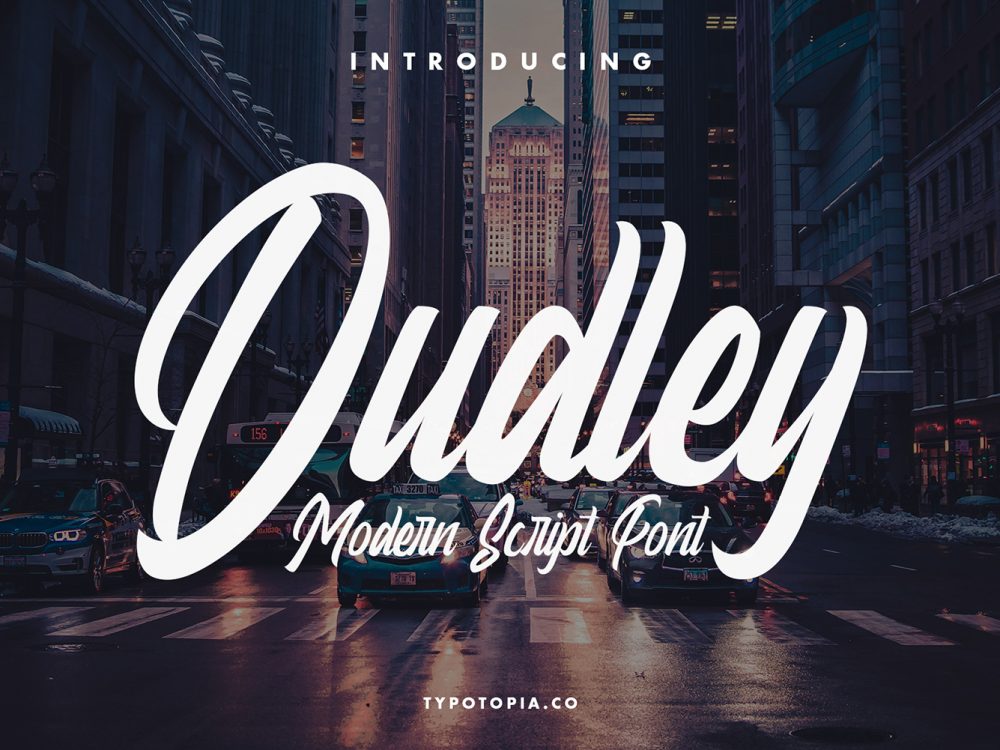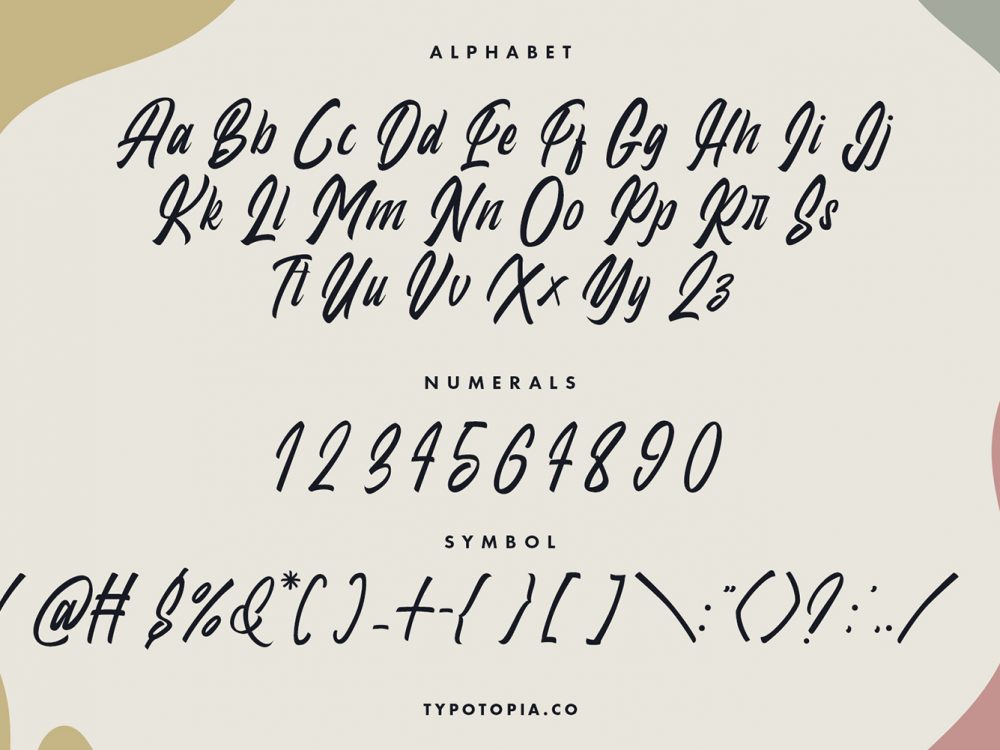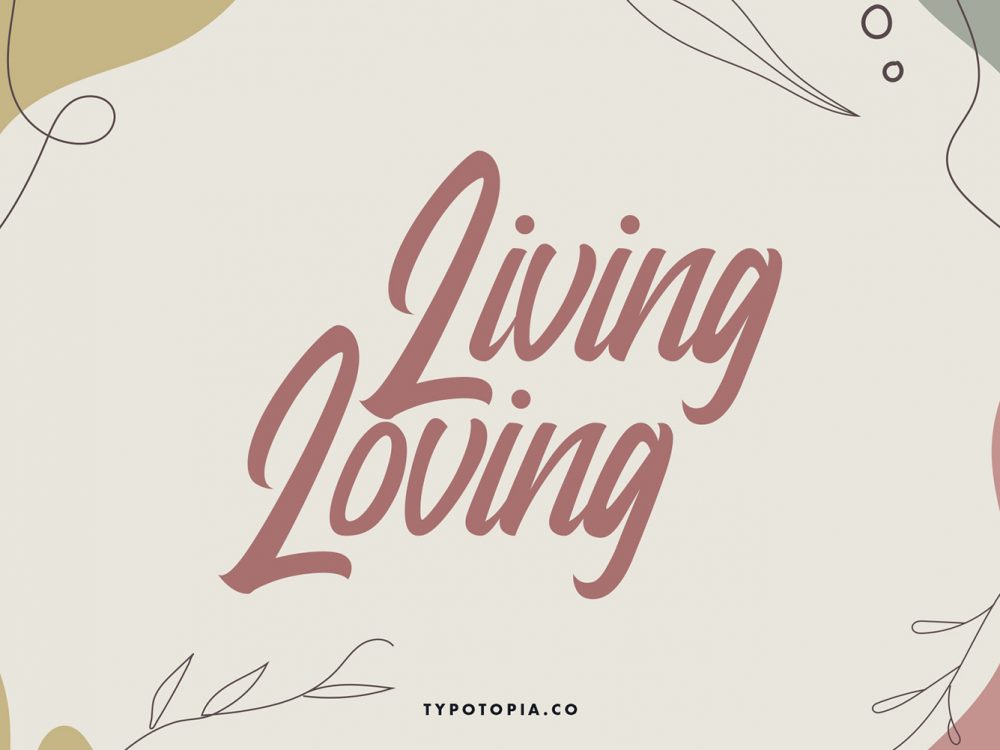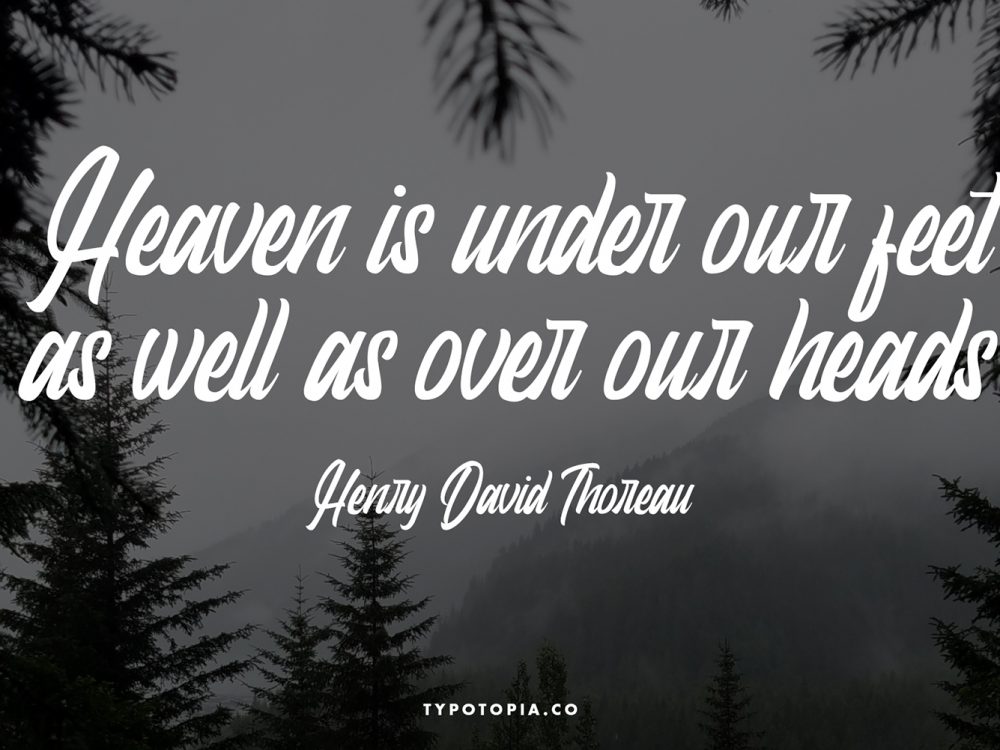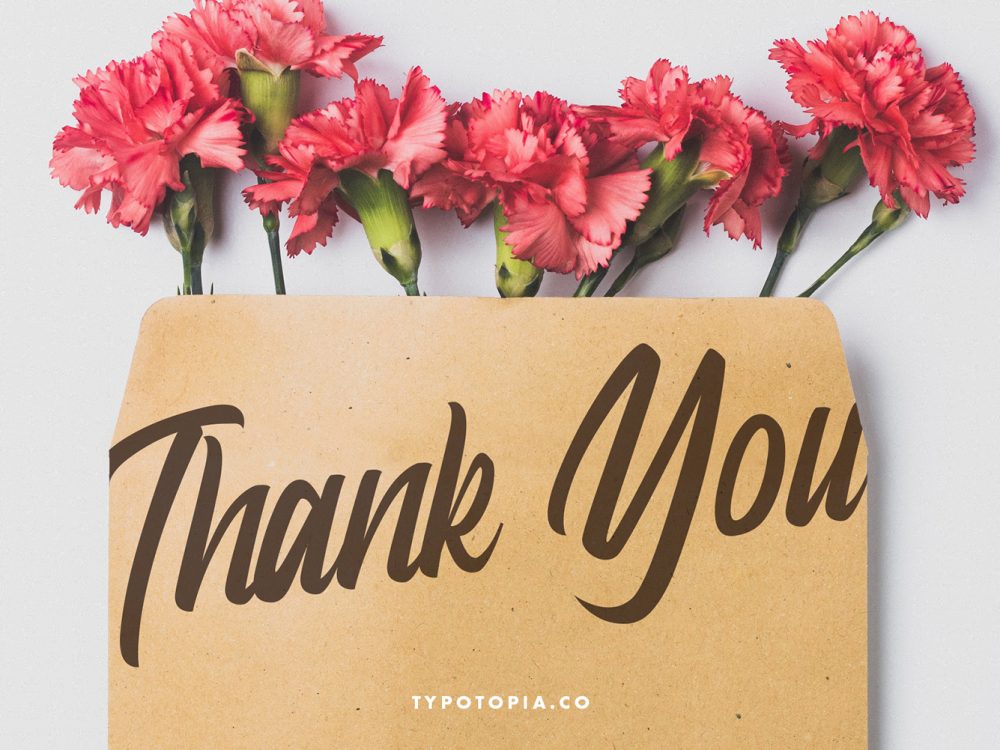
Dudley Free Font
Dudley Free Font is an interesting modern font that features a calligraphic style and simulates writing with a brush. This font is very suitable for creating various projects that require a script font. You can use this font to create memorable romantic posters, wedding invitations, greeting cards, branding, flyers, t-shirt and pillow prints, and more. If you like it don’t forget to check out the full version.